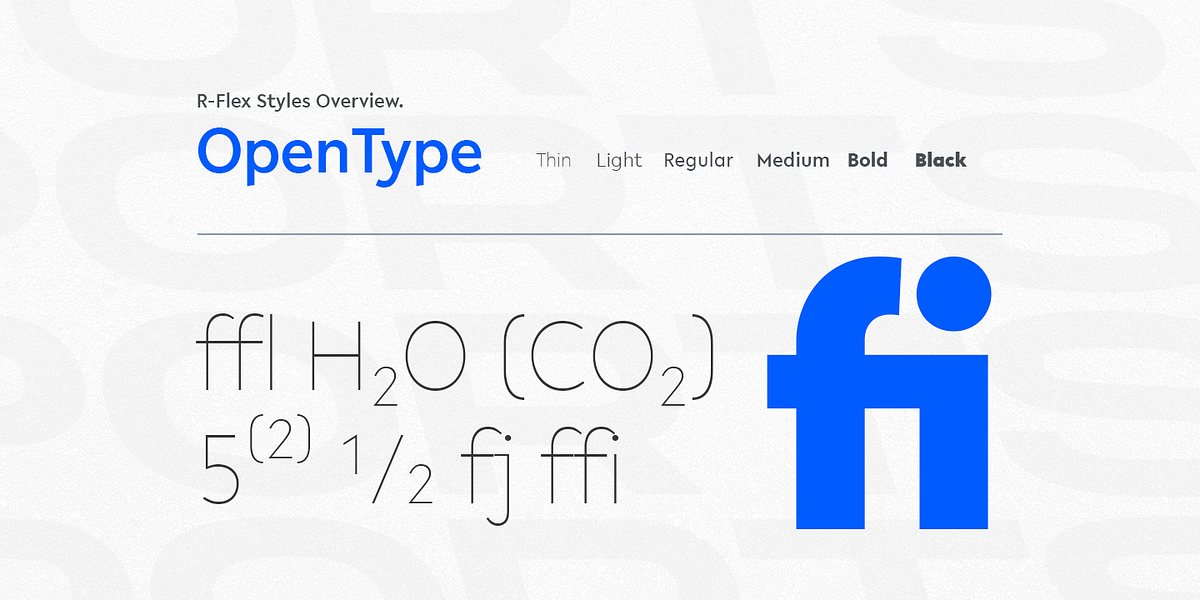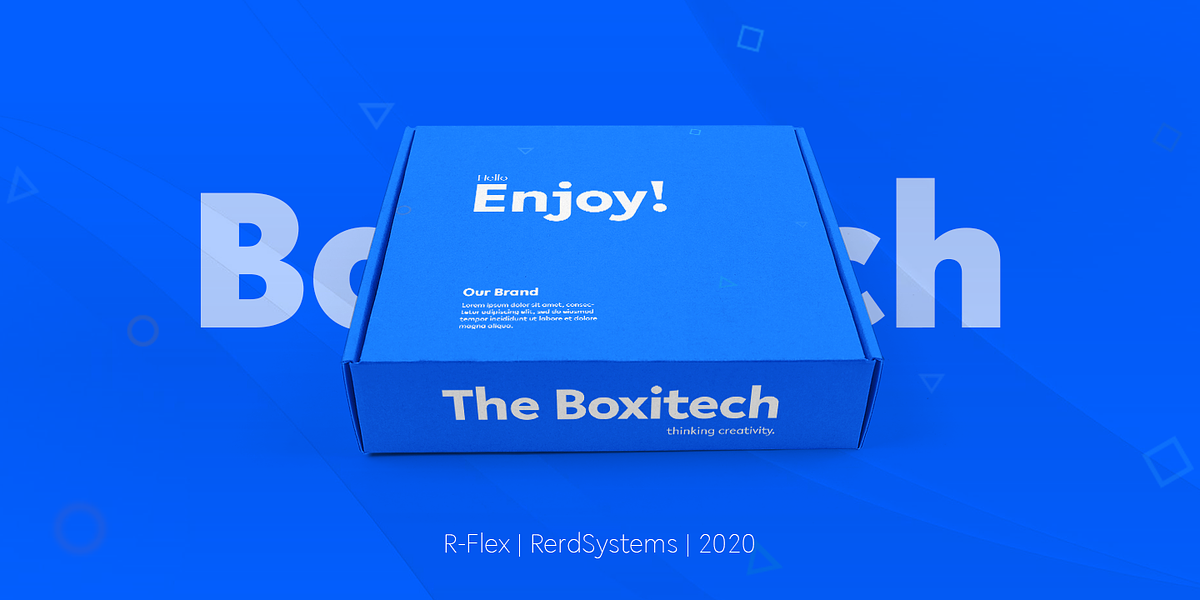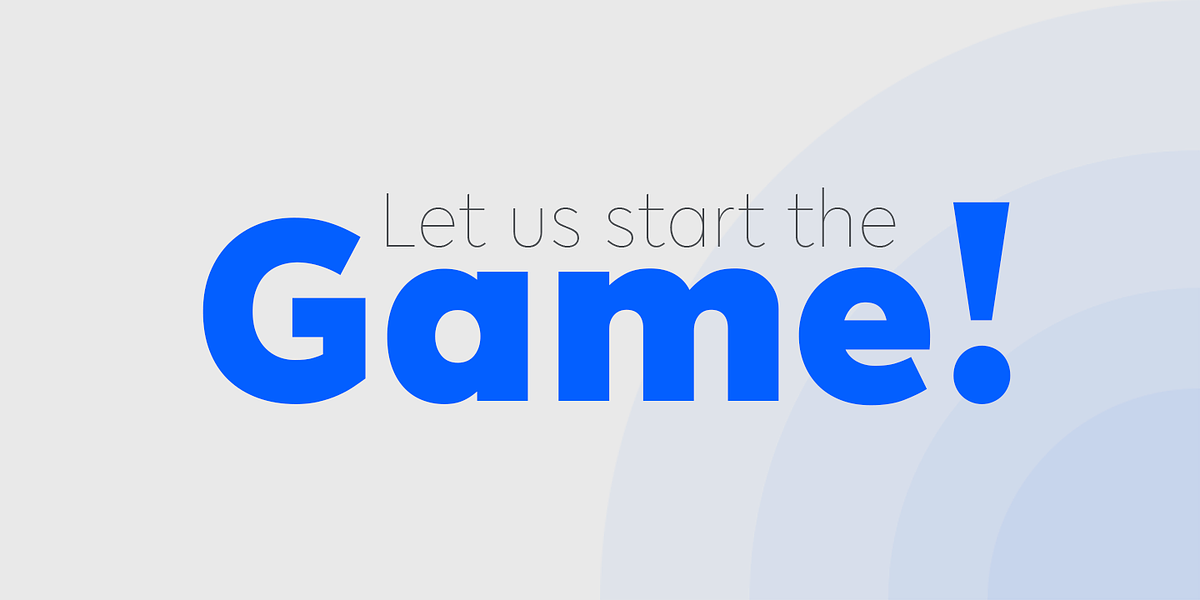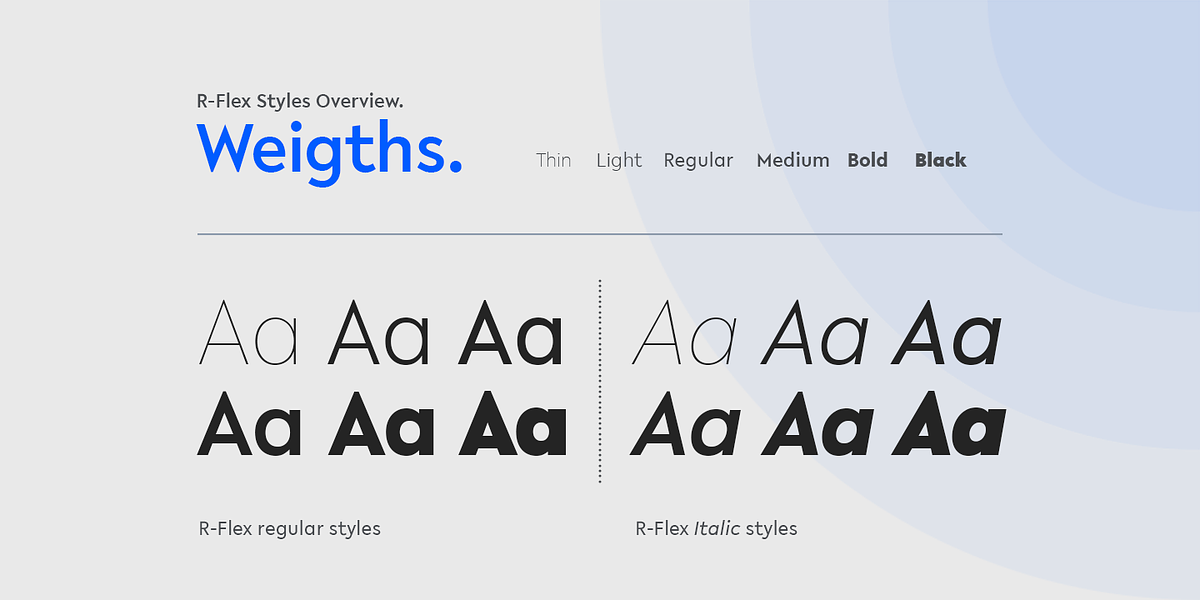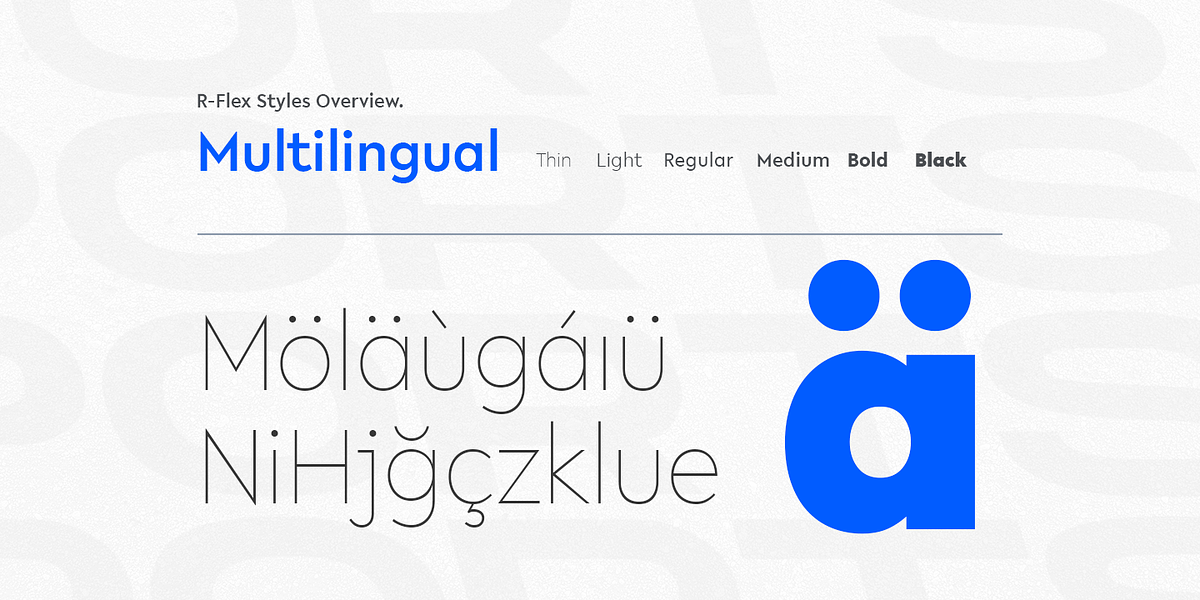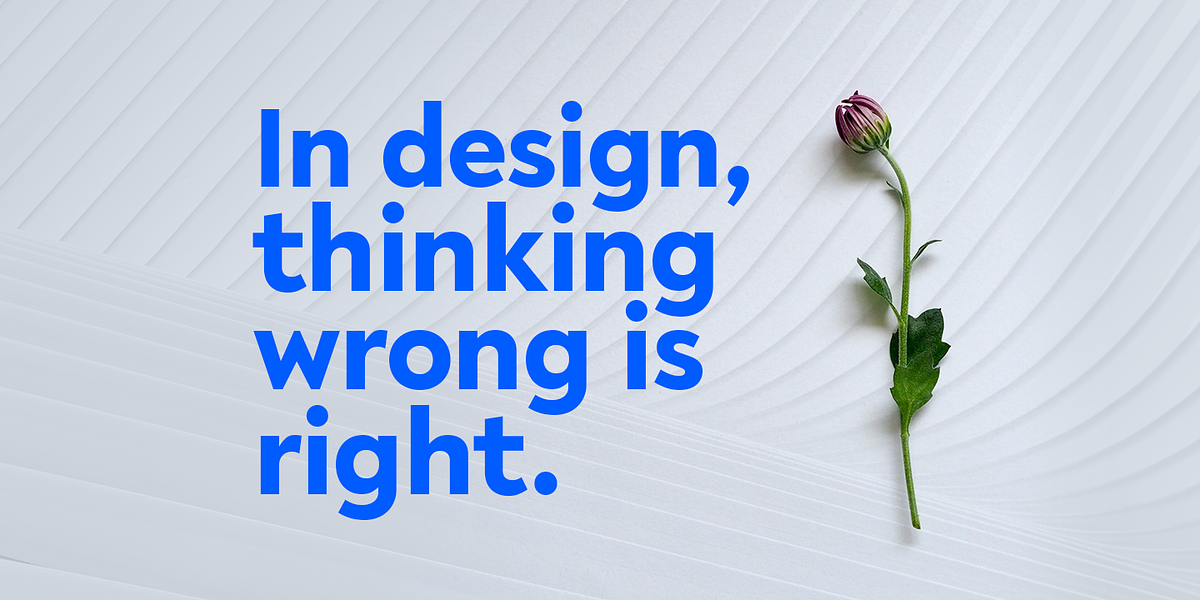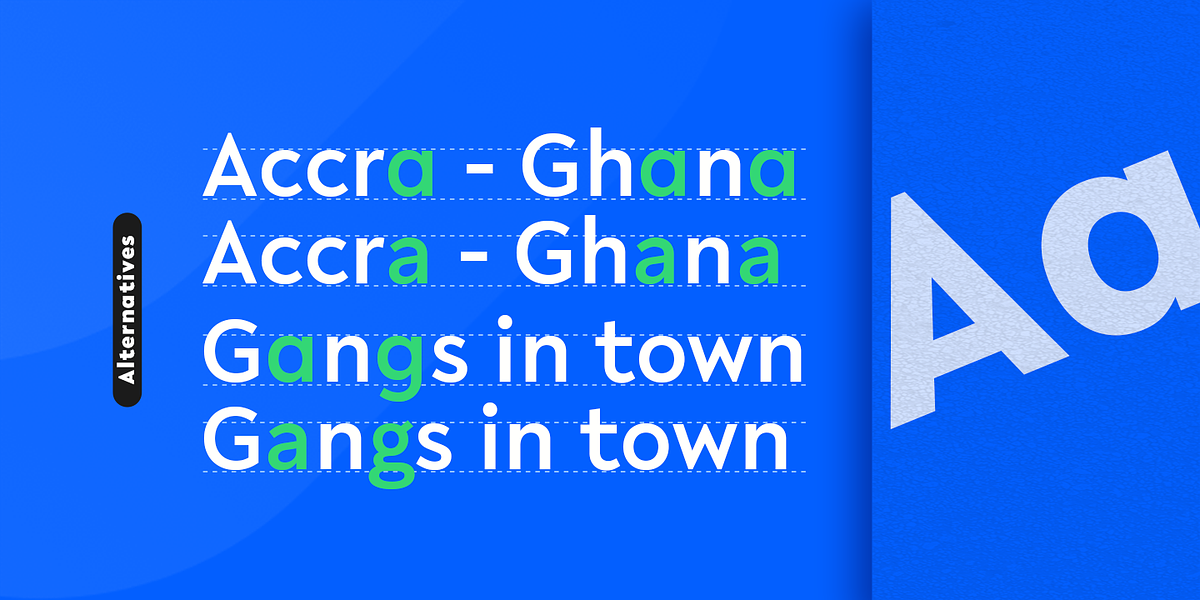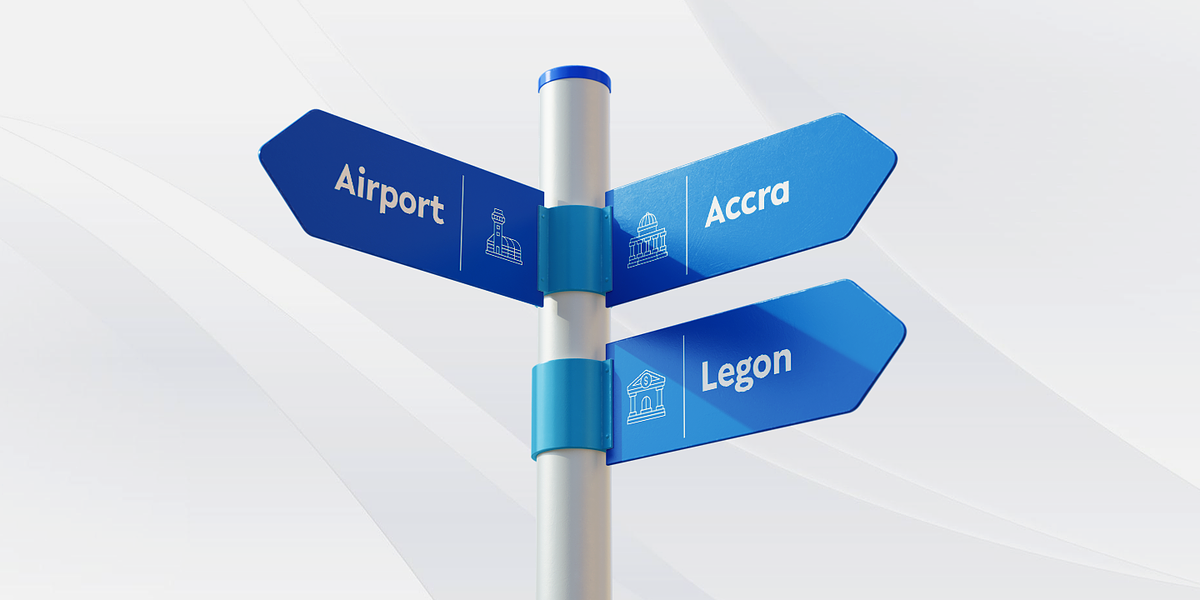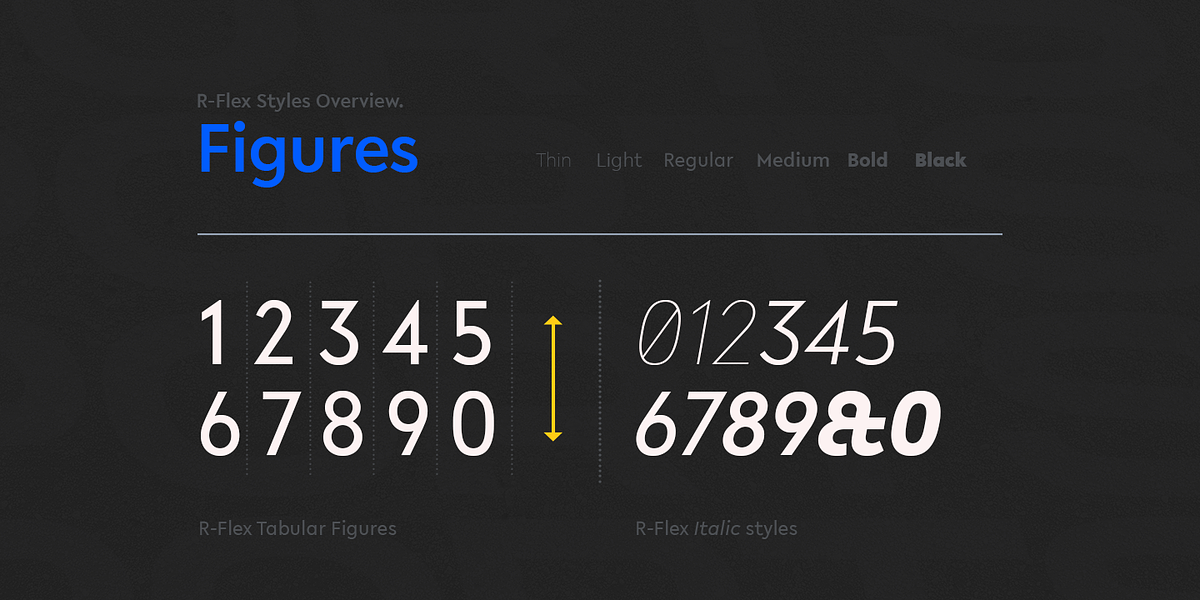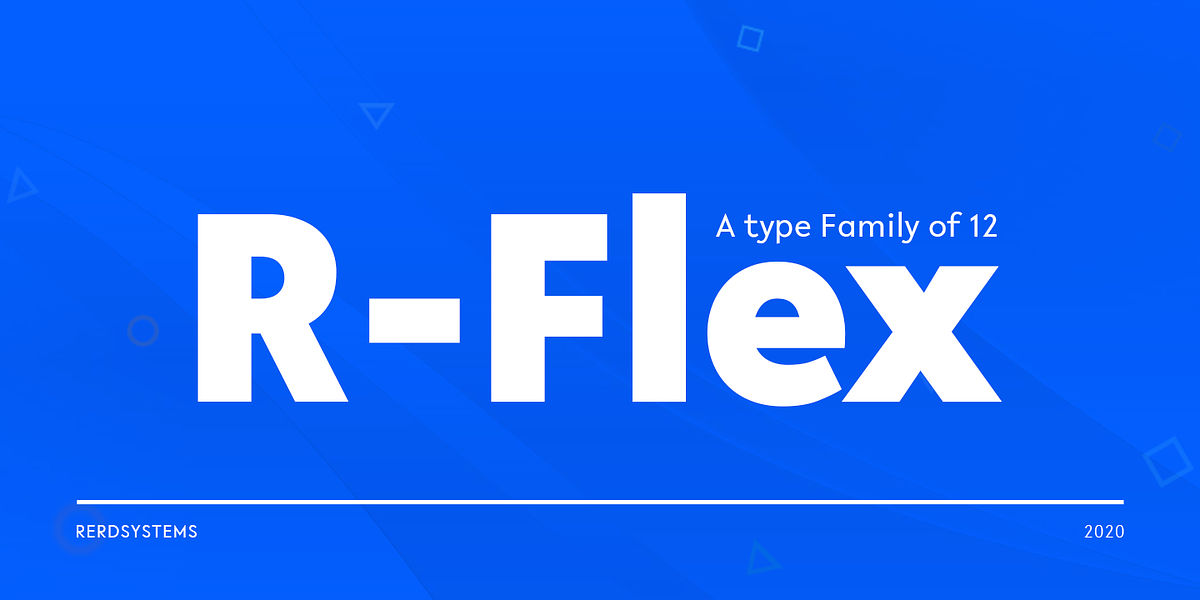
R-flex
This modern sans serif font blends geometric forms with a subtle grotesque influence. Its versatility is highlighted by the inclusion of 12 weights, encompassing both straight and italic styles. The extensive feature set includes extended language support, fractions, tabular figures, ligatures, and open-type capabilities. This makes it suitable for a wide range of applications, from graphic design and display usage to web, signage, corporate identity, and editorial design.